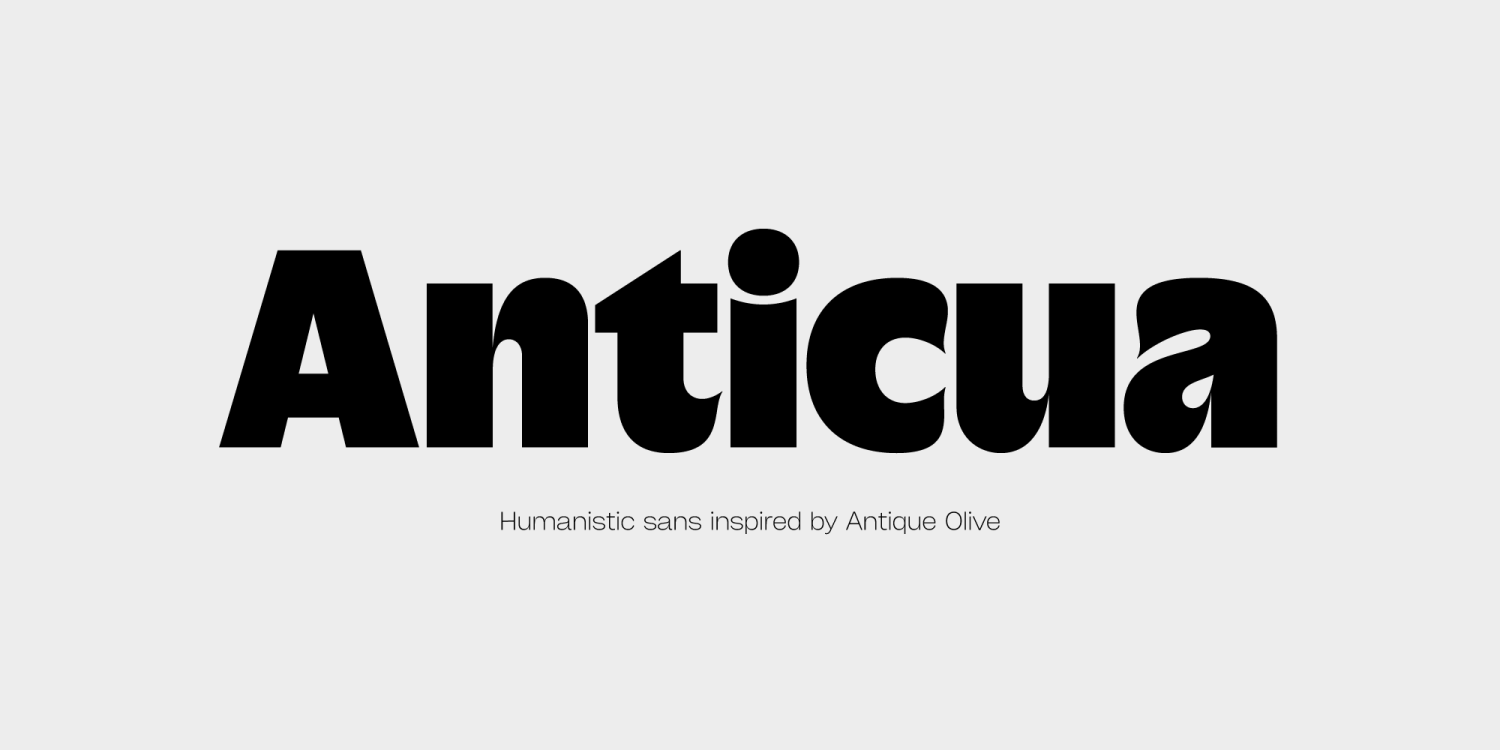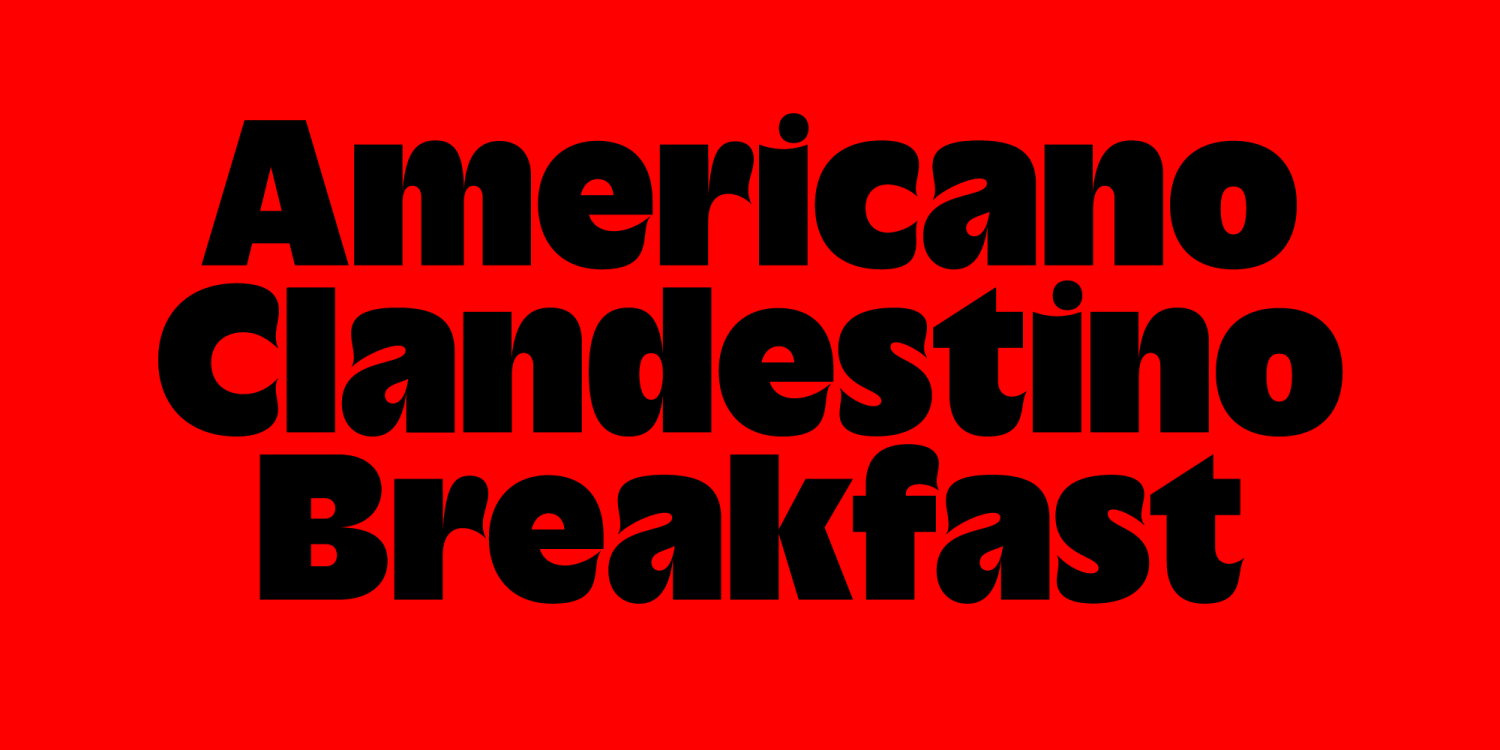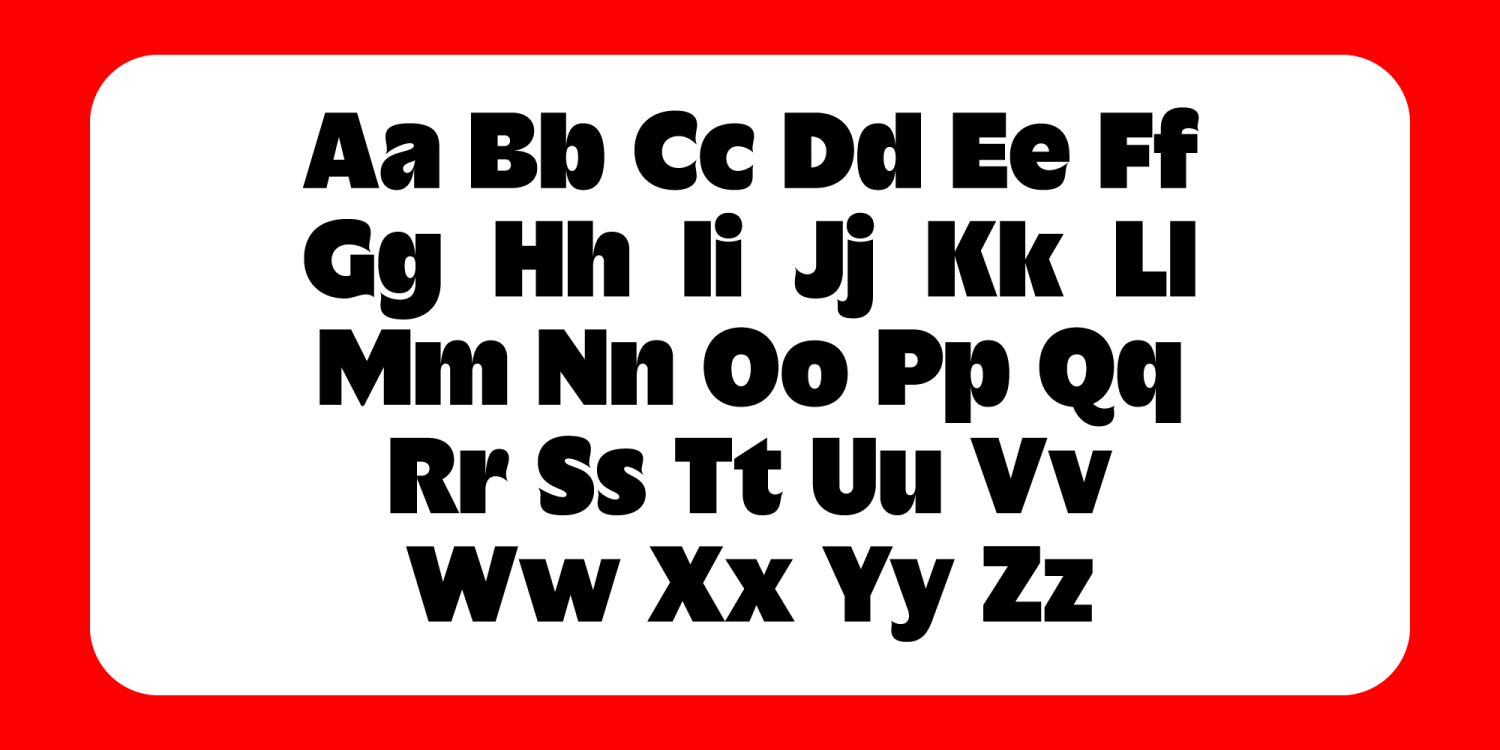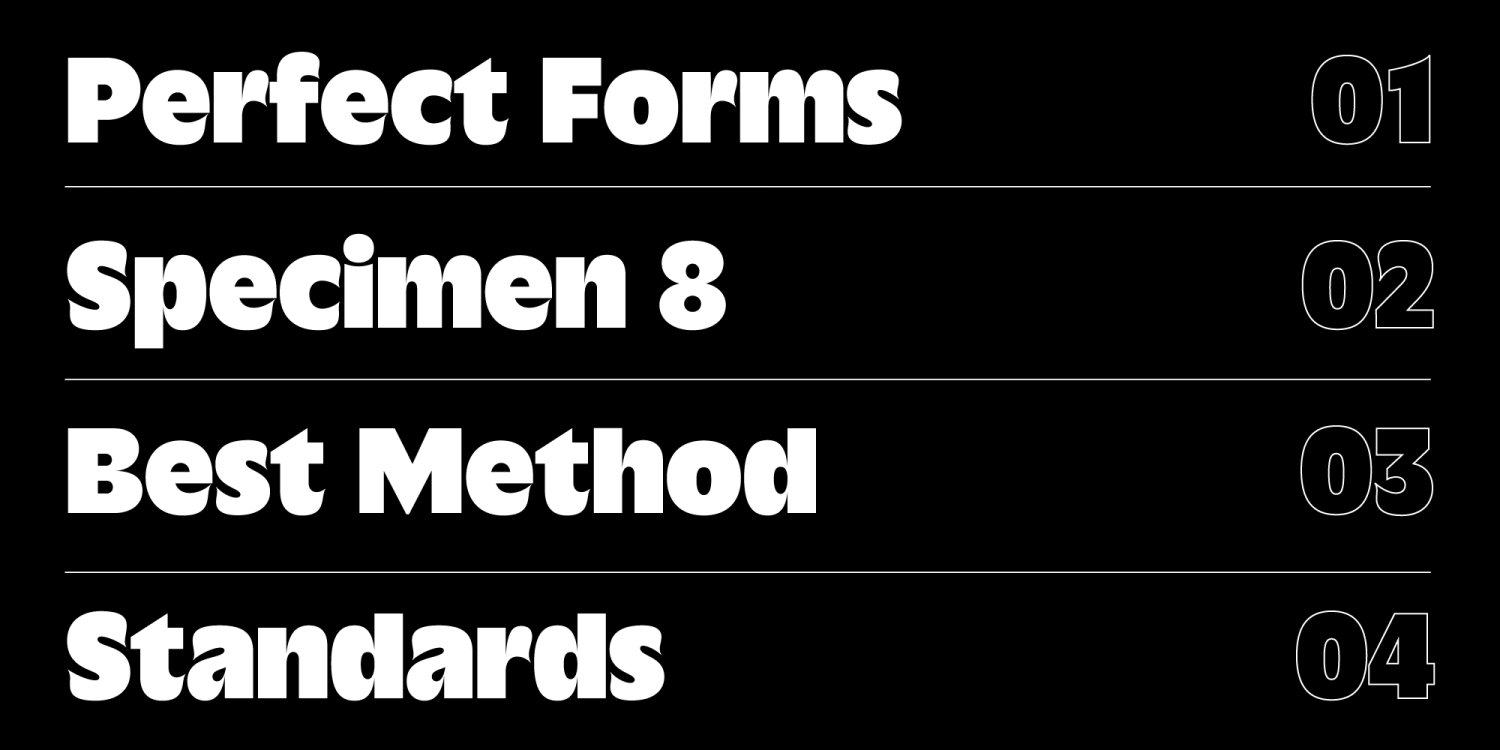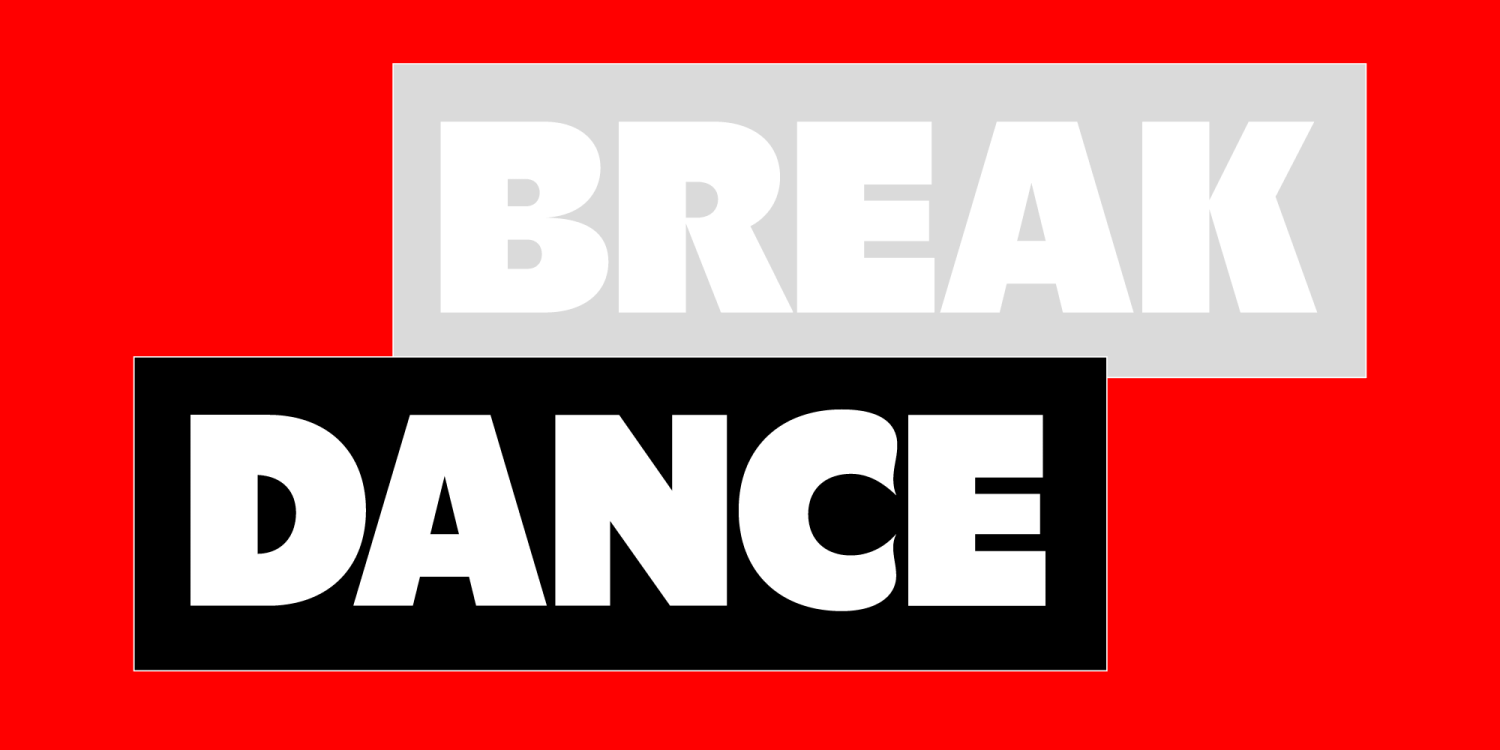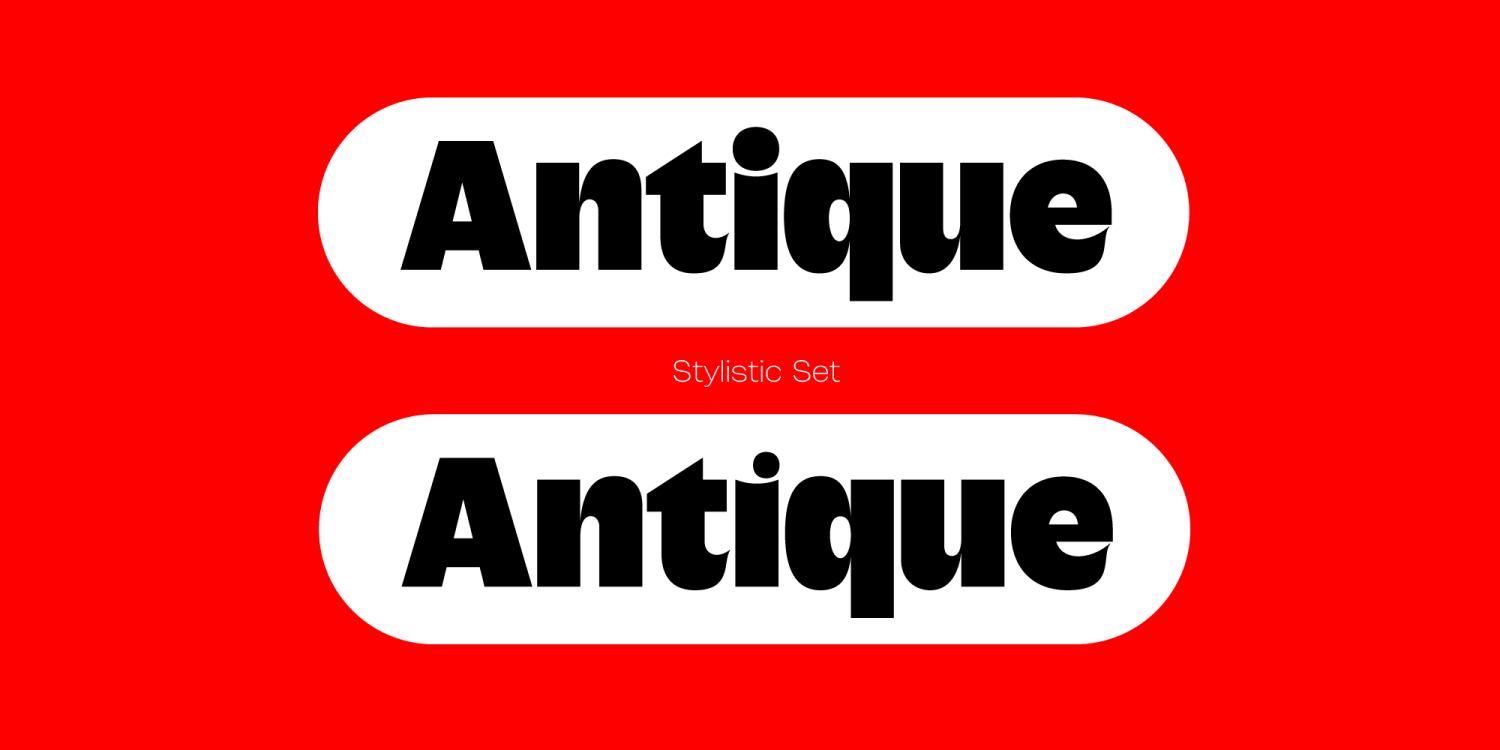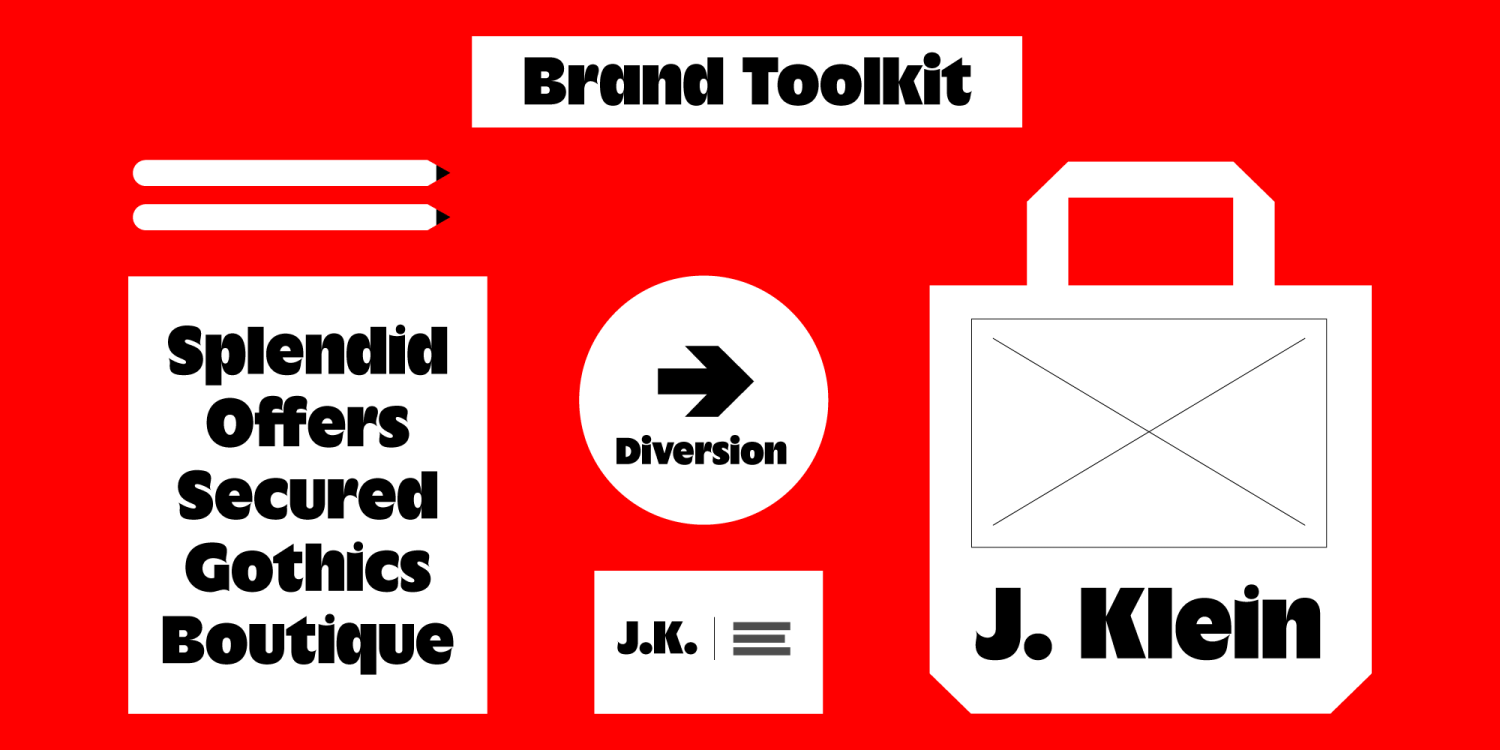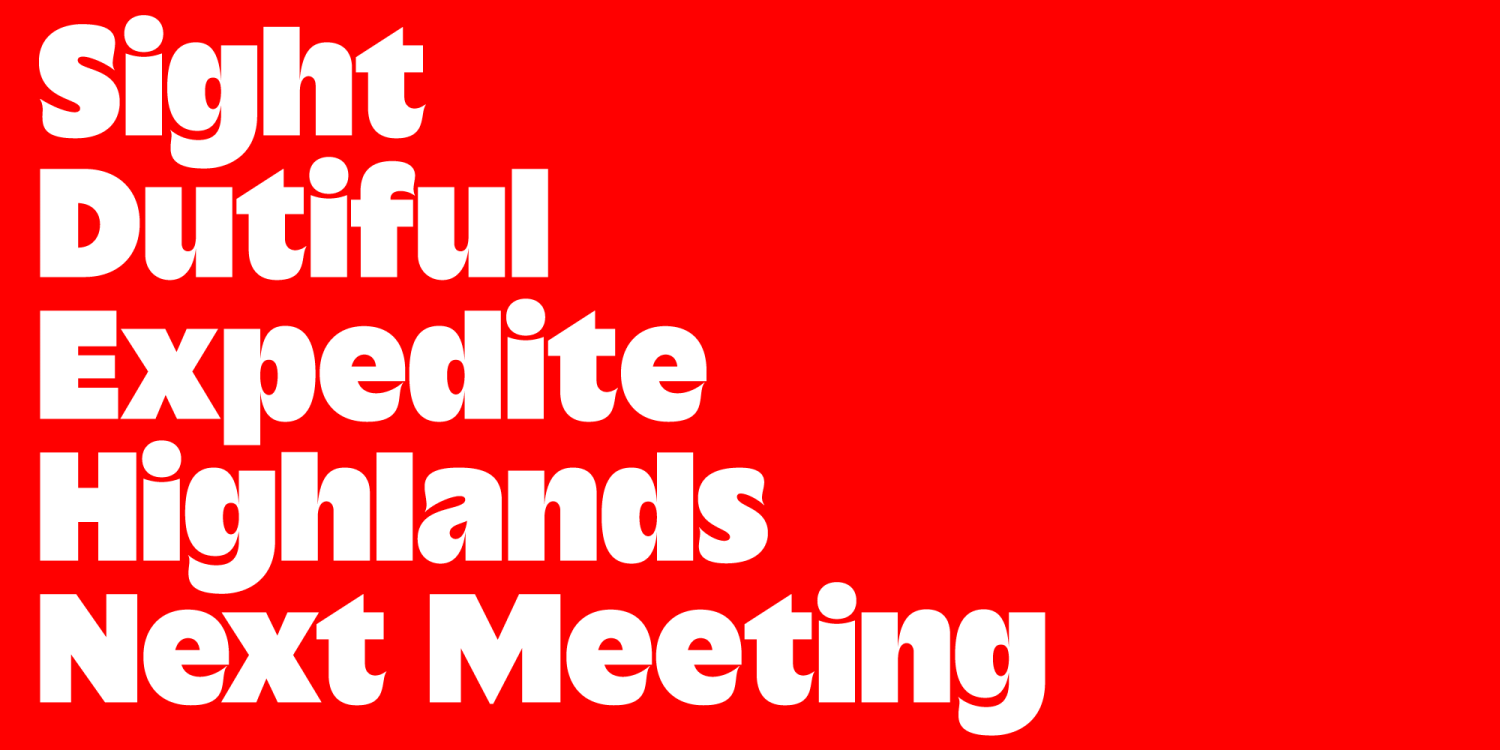
Anticua Black
Font Family by Gspr
Anticua is a humanist sans serif typeface, inspired by the work of typographer Roger Excoffon and with some features from Eric Gill's Gill Kayo design. This combination of influences gives Anticua a unique character, blending classic elements with a contemporary design.